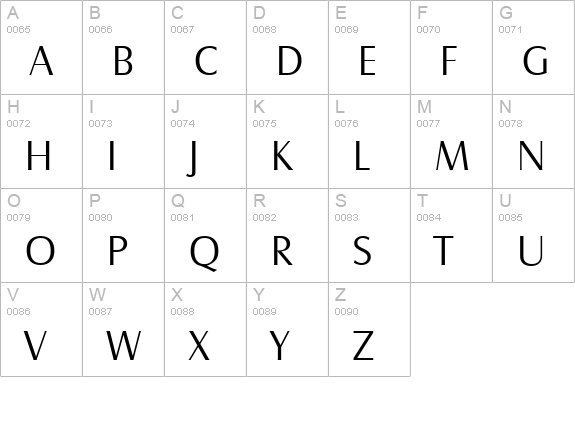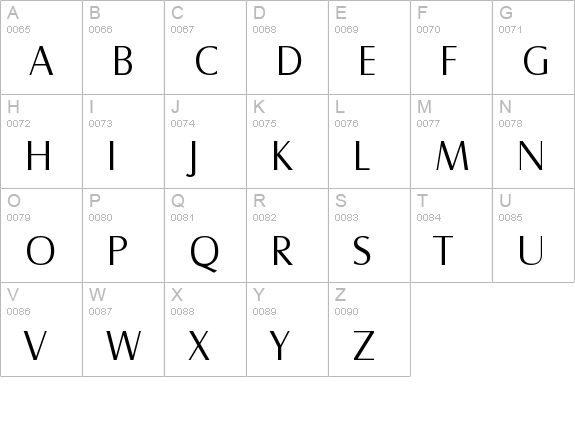
SalzburgSerial-Light-Regular is a refined, elegant variant in the SalzburgSerial typeface family \xE2\x80\x94 well suited to elegant body text, refined sub-headings, and luxury branding.
SalzburgSerial-Light-Regular font is a sleek and elegant typeface that exudes sophistication and modernity. With its clean lines and balanced proportions, this font is perfect for a wide range of design projects, from branding to editorial design. The light weight of the font adds a delicate touch, making it ideal for conveying a sense of elegance and refinement. What makes SalzburgSerial-Light-Regular font even more appealing is that it is available for free download at FontsMarket.com. This means that you can easily access this versatile and stylish font without any cost, allowing you to enhance your design projects without breaking the bank. Don't miss out on the opportunity to elevate your designs with the timeless beauty of SalzburgSerial-Light-Regular font, now freely available for download at FontsMarket.com.